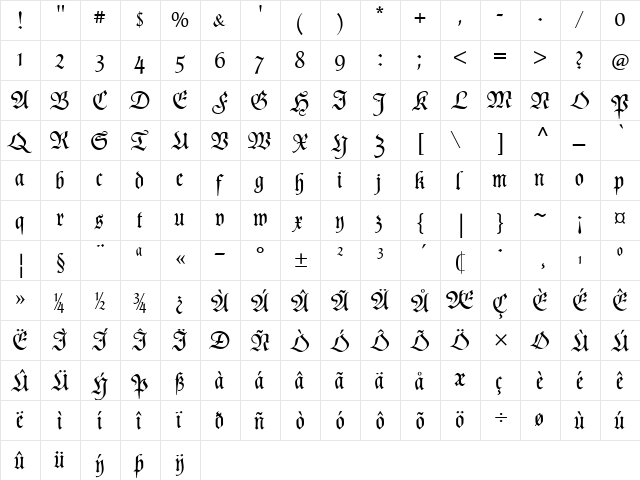
Poppl Fraktur CAT Regular
| Foundry | Peter Wiegel |
| Designer | Peter Wiegel |
Design Context for Poppl Fraktur CAT Typeface
Poppl Fraktur CAT channels the dramatic heritage of Fraktur and Gothic scripts, bringing a sense of historical gravitas to any design.
A natural fit for music packaging, gothic editorial design, and any project that needs historical weight.
Font Pairing: Pair with a clean neutral sans-serif for body copy to let Poppl Fraktur CAT's character lead without overwhelming the composition.
Pro Tip: Reserve Poppl Fraktur CAT for display and logo use — pair it with a clean sans-serif for body copy to prevent the composition from feeling oppressive.